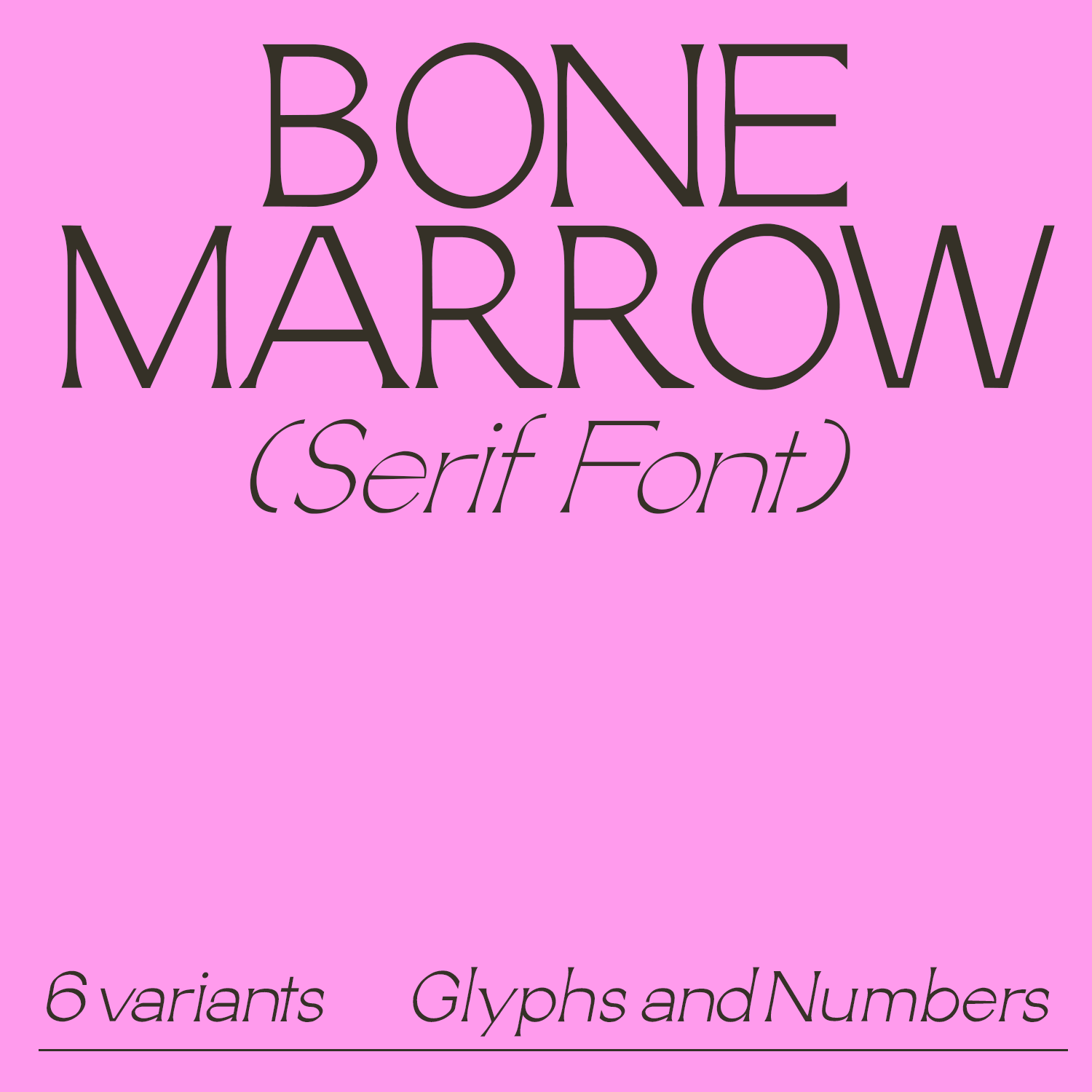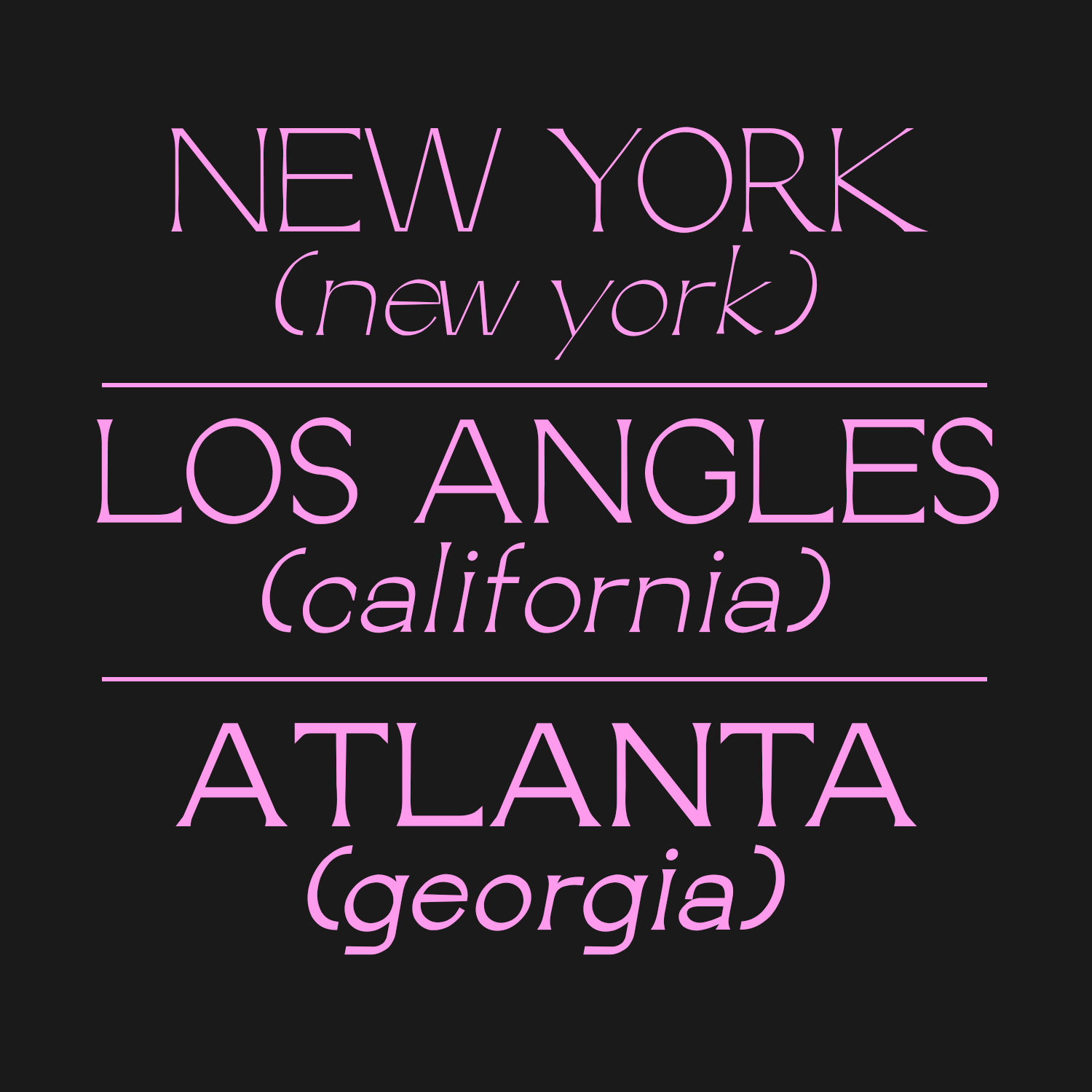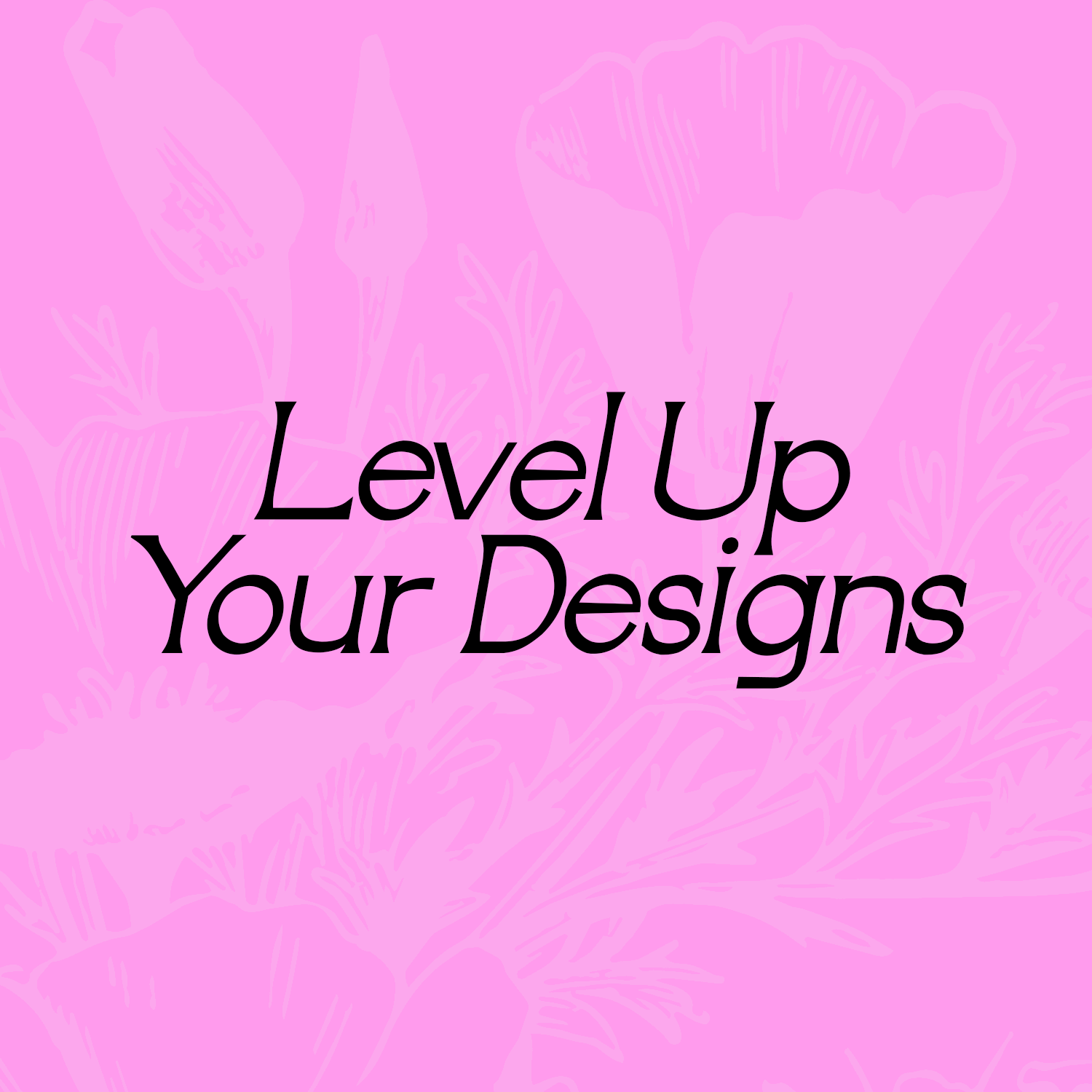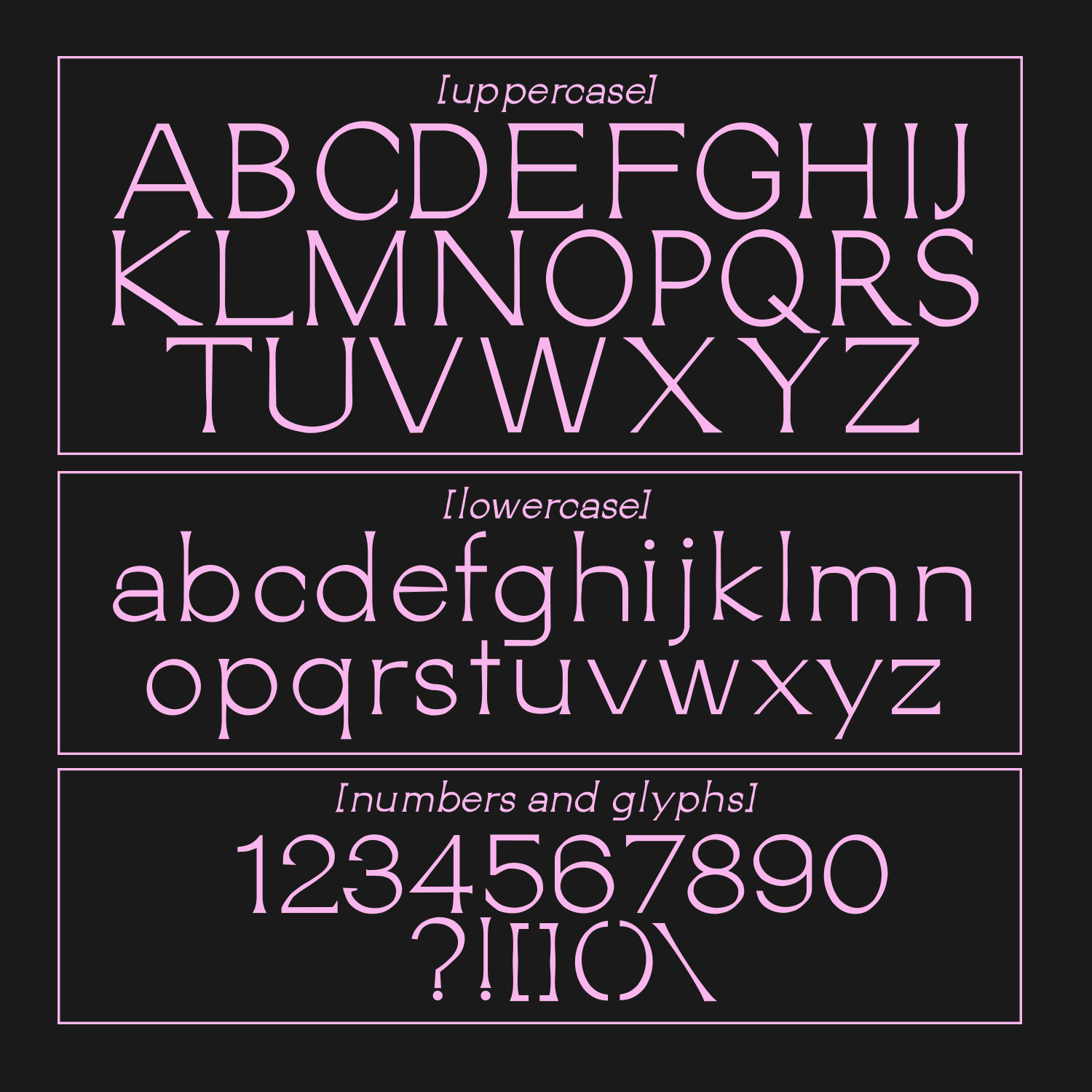
Bone Marrow Font
Introducing Bone Marrow, a roman-style serif with delicate flared strokes and just enough bite. Thin, elegant letterforms with sharp tapered serifs give it a refined, editorial feel that still carries an edge. Perfect for fashion layouts, branding, posters, and any project that needs to feel expensive without trying too hard.
Bone Marrow Font is a roman-style serif typeface featuring thin, elegant letterforms with flared strokes and sharp tapered serifs. It is designed to provide a refined and sophisticated appearance suitable for various design projects.